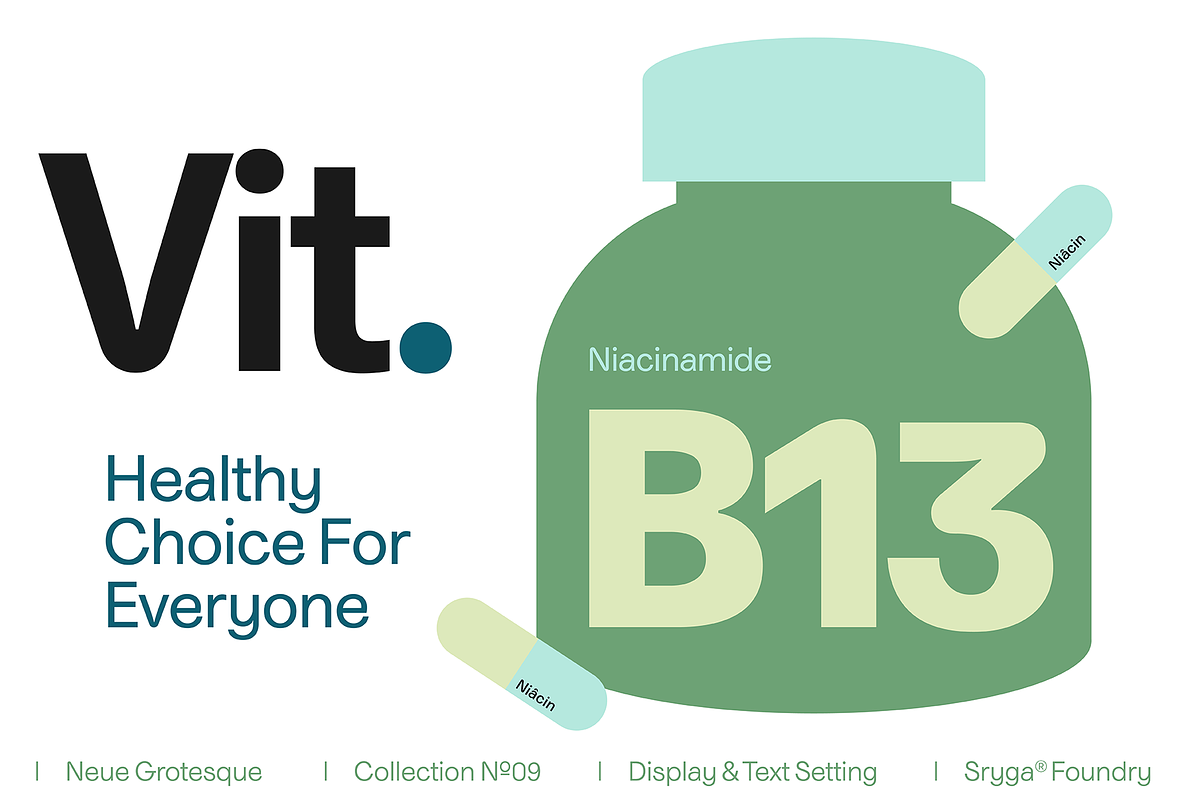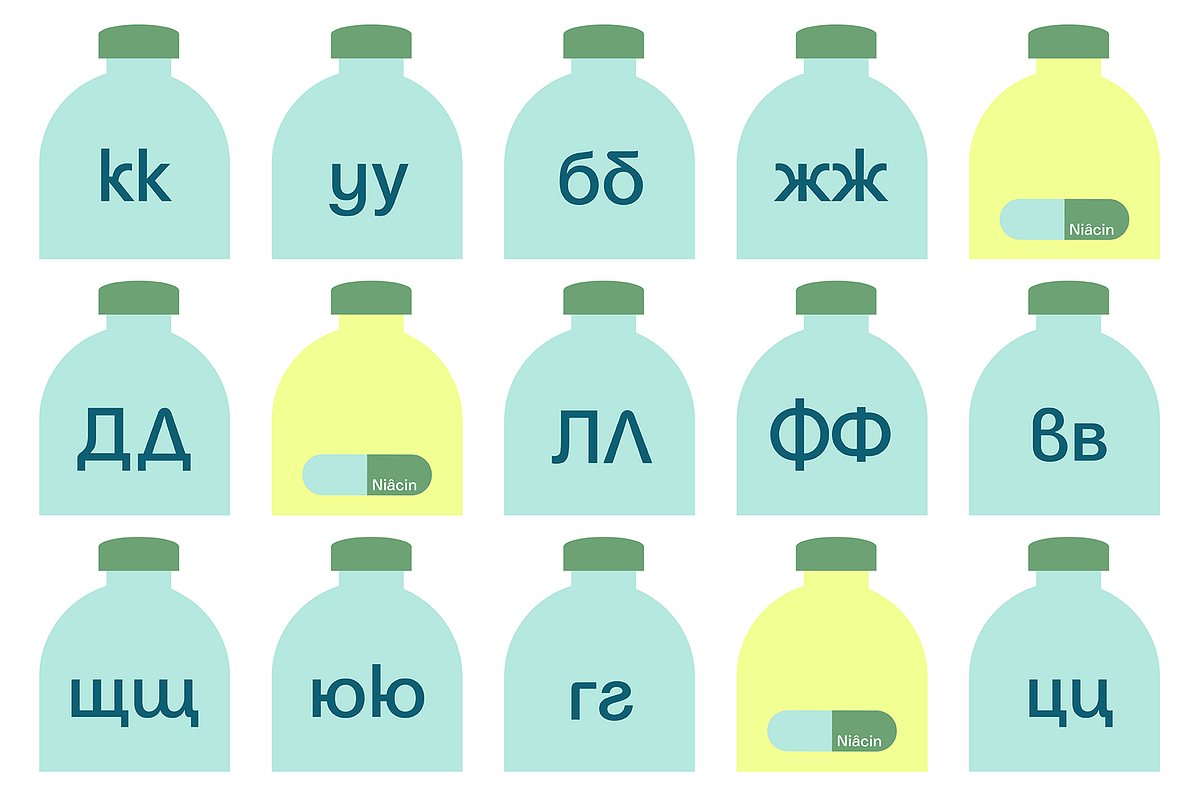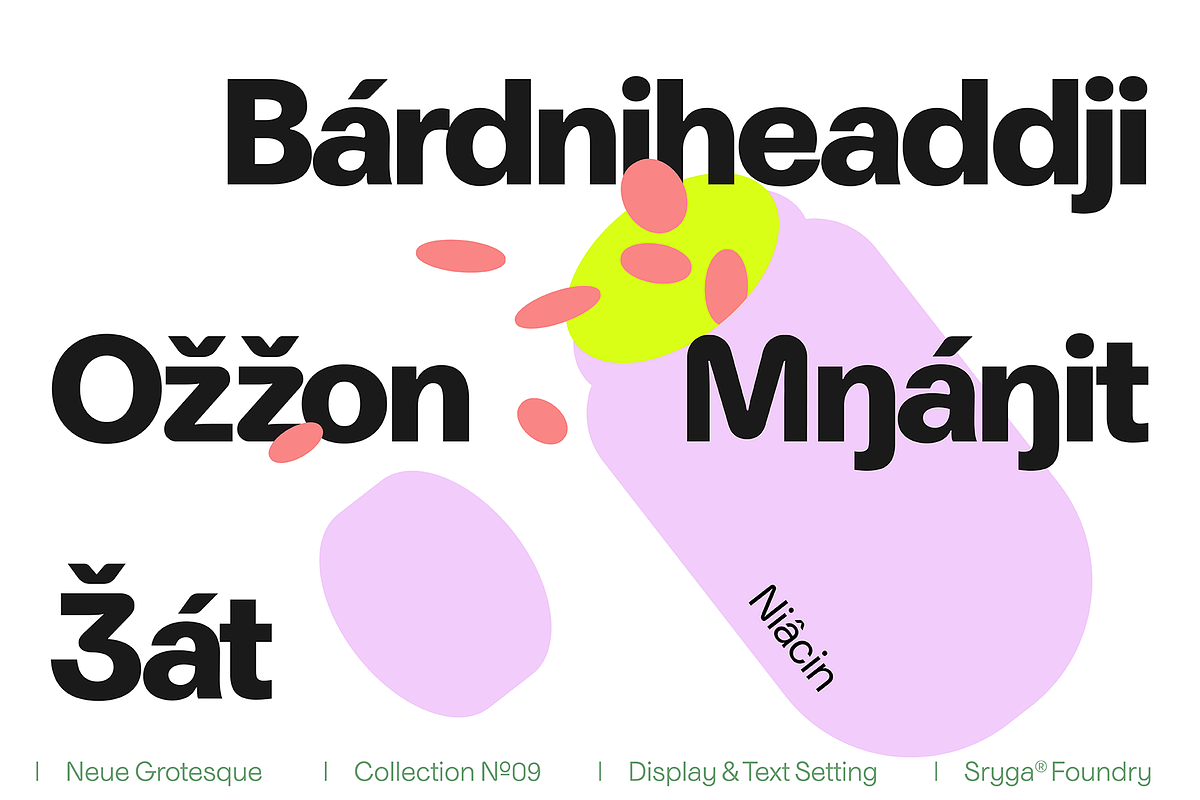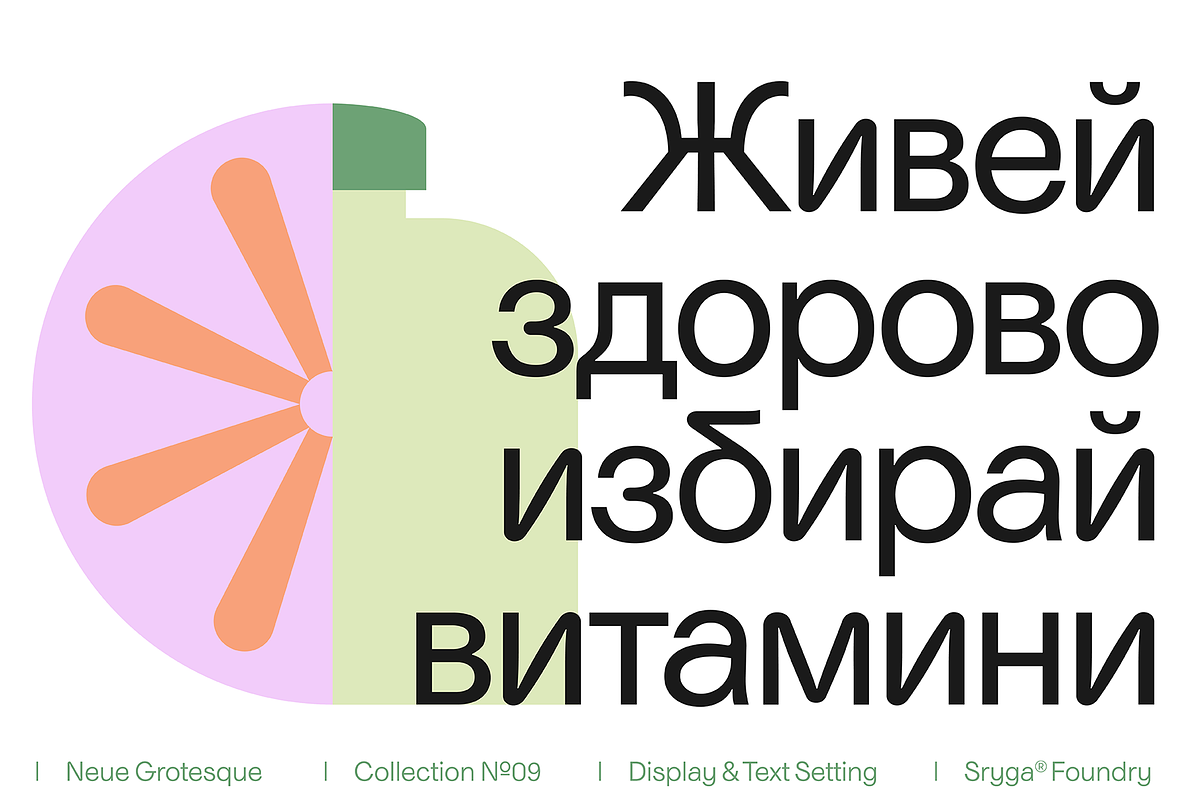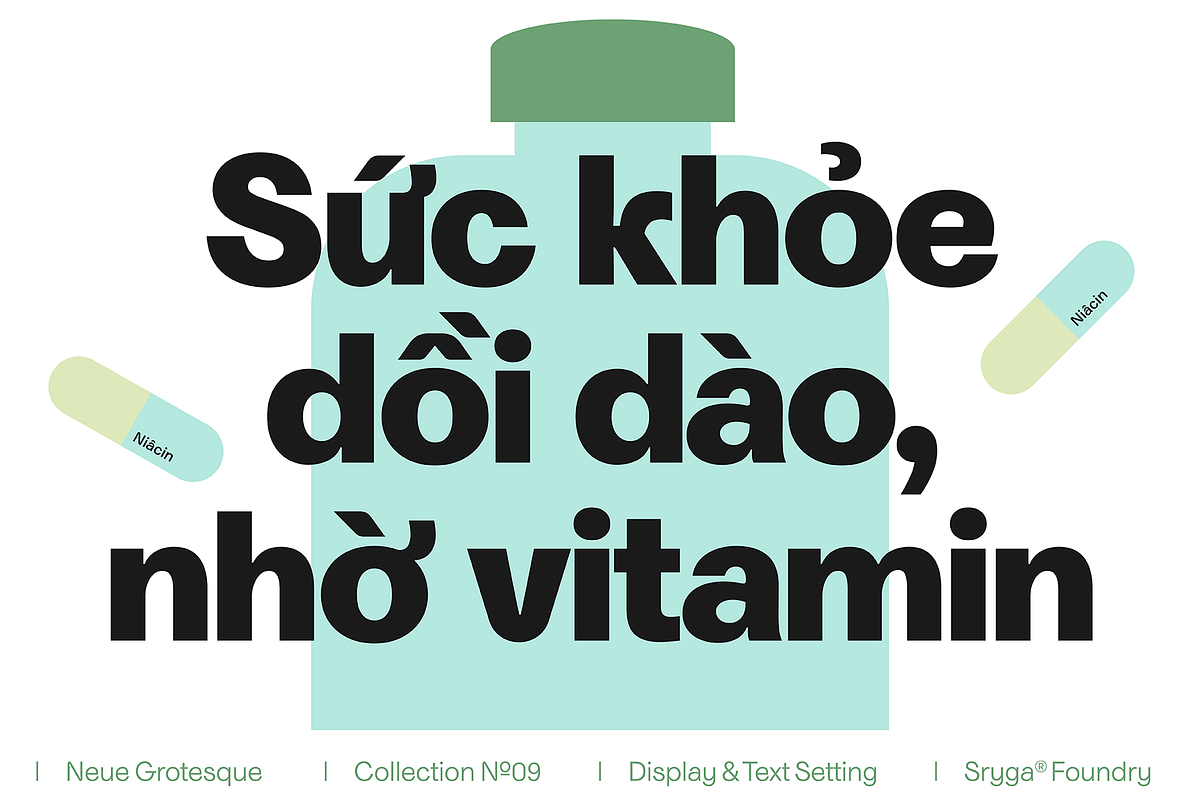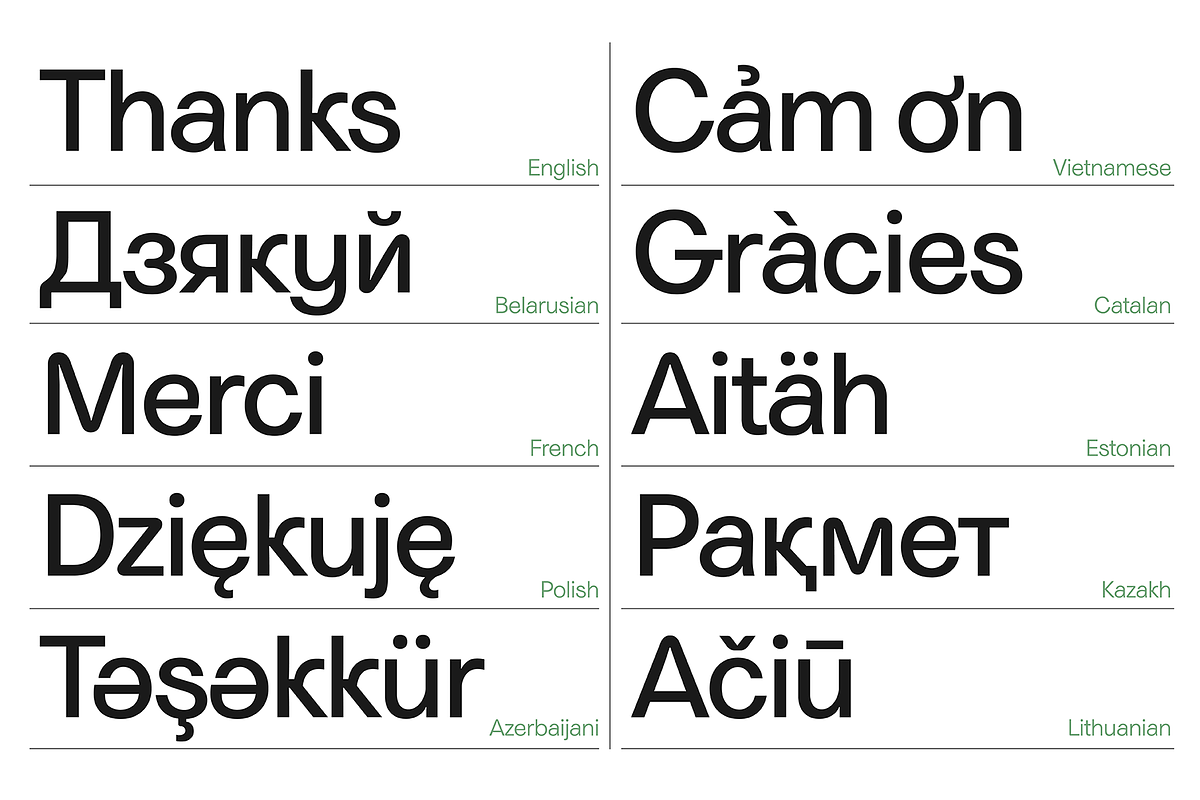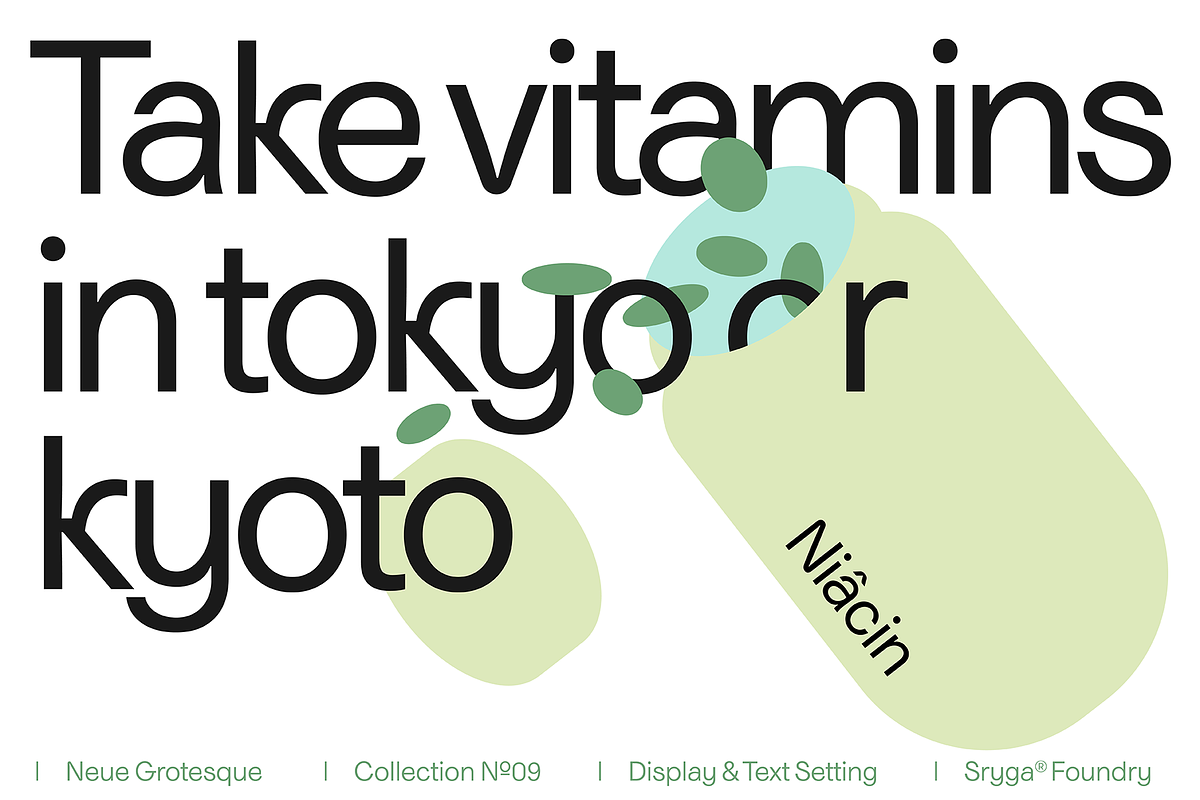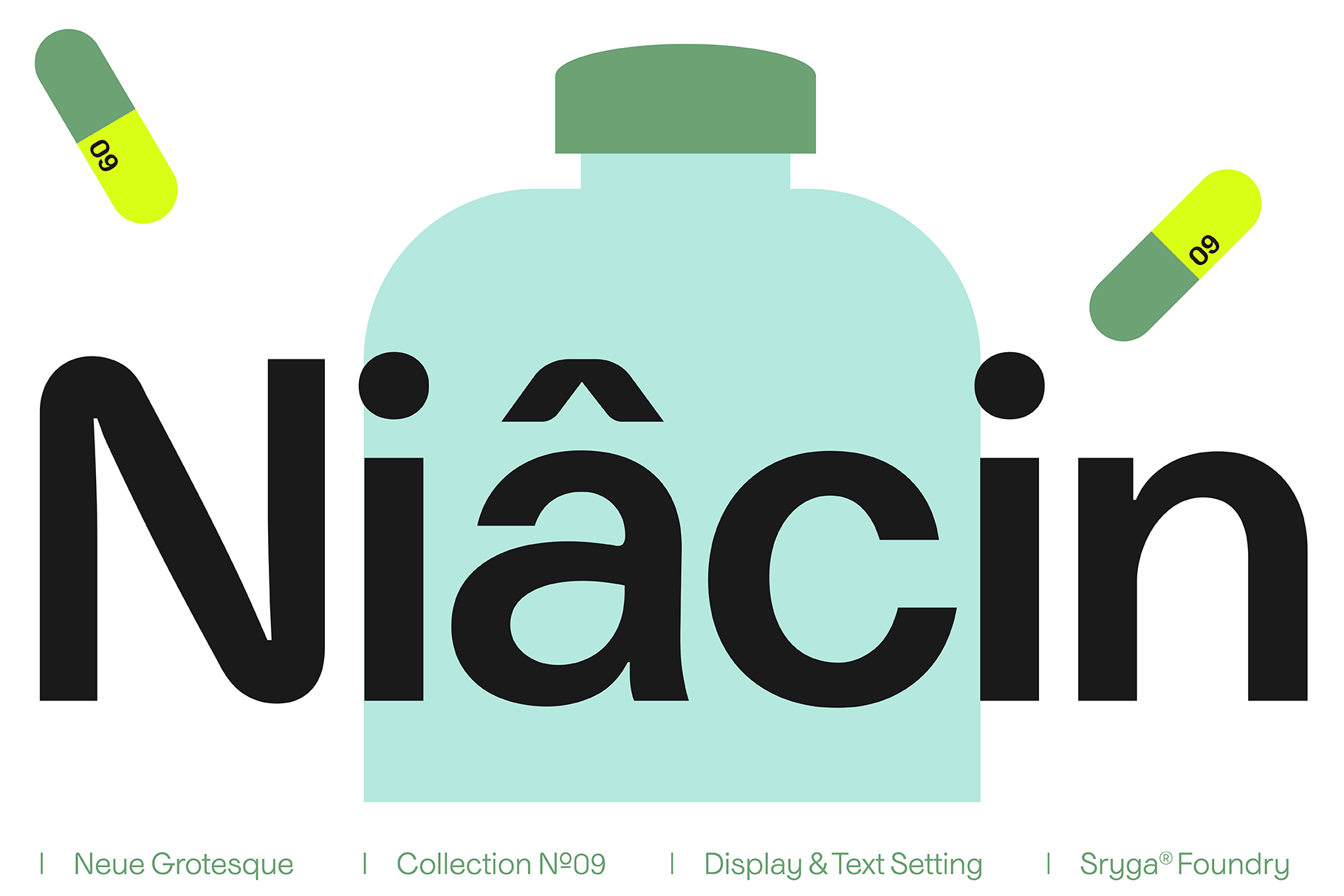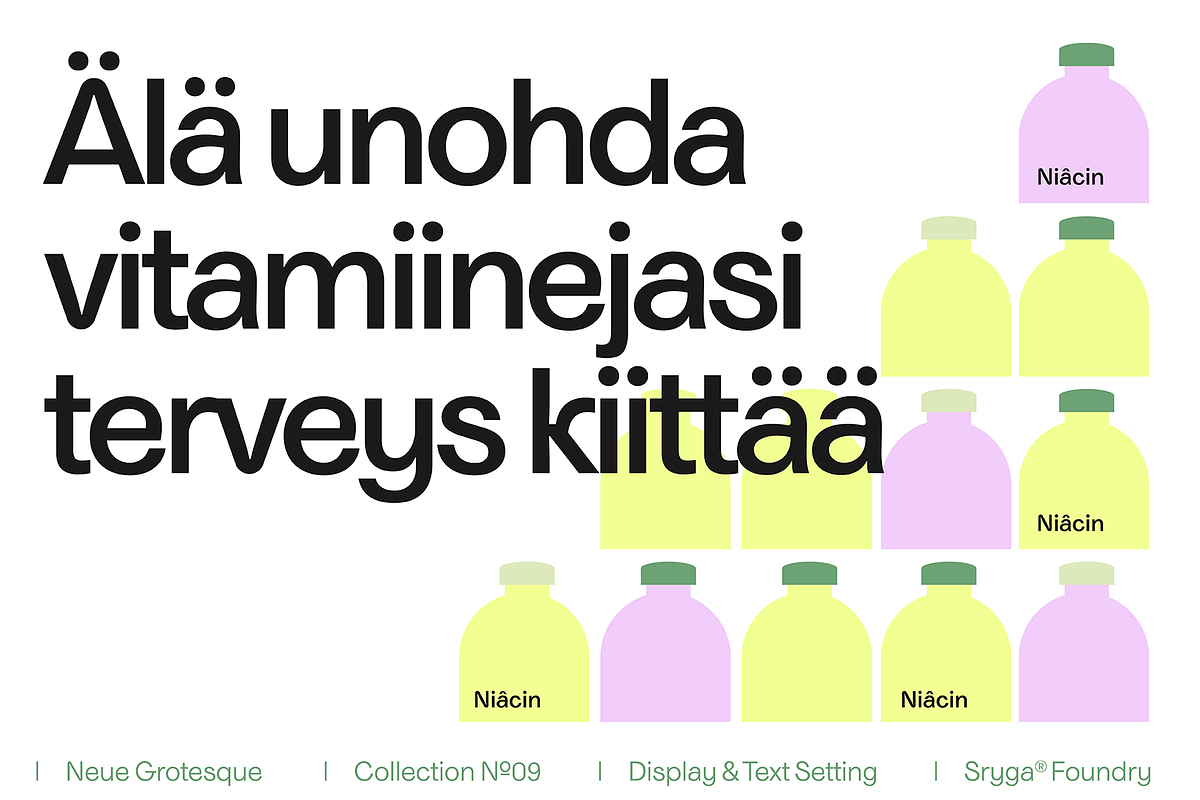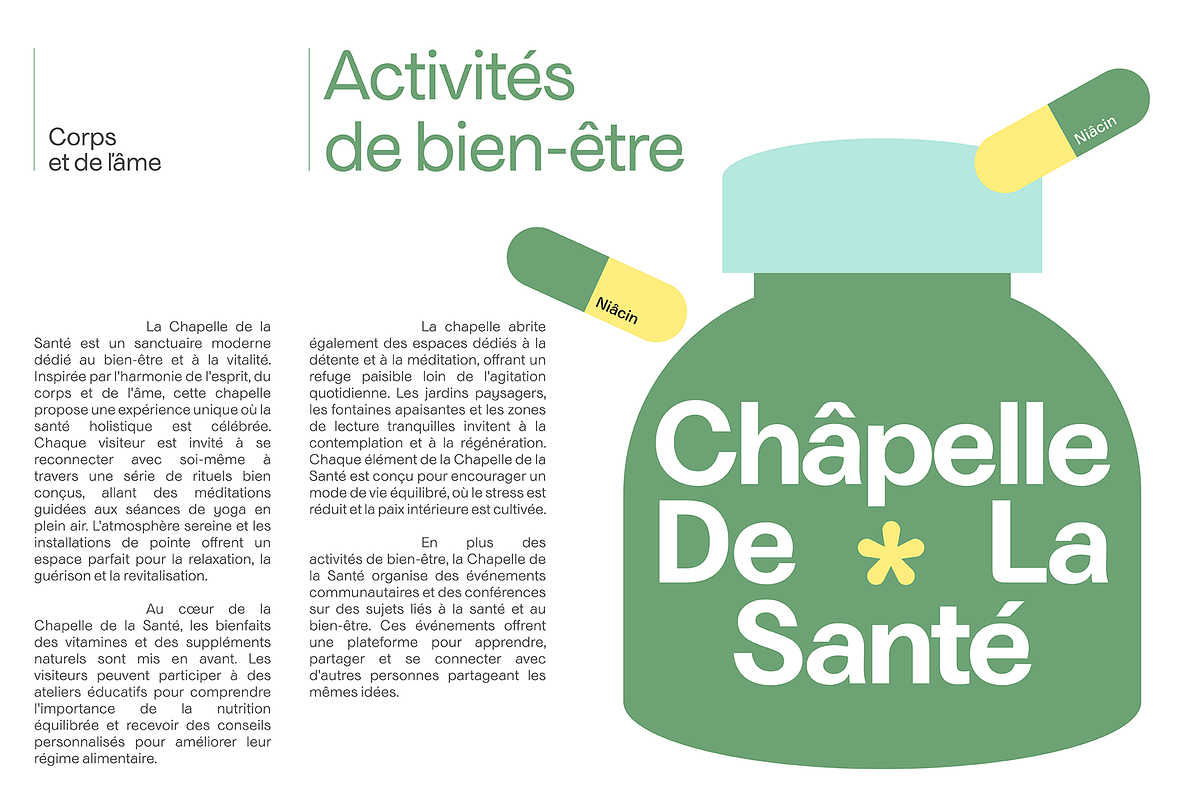
Niacin Quirky Fun Sans Variable Font
Niacin is the typeface that blends precision with a lot of personality! Whether you're designing a bold headline or crafting tiny captions, Niacin delivers impeccable readability with a dash of delightful unpredictability. Its sleek, clean lines make your text shine, while its quirky nuances add a touch of handcrafted charm that stands out at any size. Elevate your design game with Niacin—where every letter tells a story!